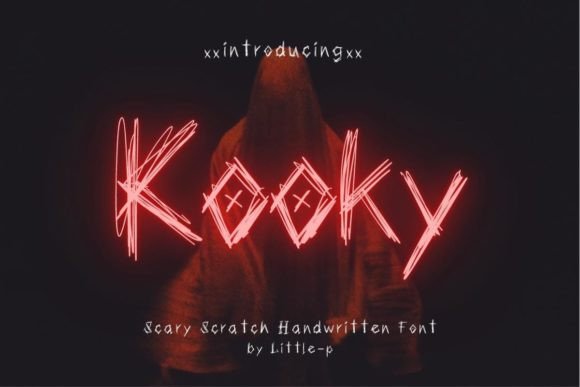
Unleash the Spirit of Halloween with "Kooky": A Font That Embodies the Spooktacular
In a world where creativity knows no bounds, where imagination reigns supreme, there exists a font that captures the very essence of the spooky season: "Kooky." This extraordinary script font, meticulously crafted by the talented Issie_Studio, transports you to a realm of eerie elegance and spine-tingling delight.
"Kooky" is not merely a font; it's an experience. Its messy handwritten style exudes a sense of spooky charm, beckoning you to embrace the Halloween spirit and let your creativity run wild. Each letter, meticulously designed with a haunting touch, dances across the screen, painting tales of mystery and intrigue.
With "Kooky," you can transform your designs into captivating works of art. Enchant your Halloween invitations with an eerie elegance that sends shivers down the spine. Craft social media posts that ooze with spooky charm, guaranteed to make your audience do a double take. Unleash your imagination and create logos, posters, and flyers that evoke the magic of the Halloween night.
Beyond its undeniable aesthetic appeal, "Kooky" is a versatile font that lends itself to a myriad of creative endeavors. Its Halloween-themed vibe makes it the perfect choice for spooky branding, event promotions, and party invitations. But don't limit yourself to the realm of the macabre; "Kooky" can also add a touch of whimsy and charm to non-Halloween-related projects. Its messy handwritten style brings a sense of playfulness and individuality to any design, making it perfect for children's books, greeting cards, and whimsical illustrations.
With "Kooky," the possibilities are endless. Let your imagination soar and embark on a creative journey like no other. Embrace the spirit of Halloween and beyond with this font that will leave a lasting impression on your audience.